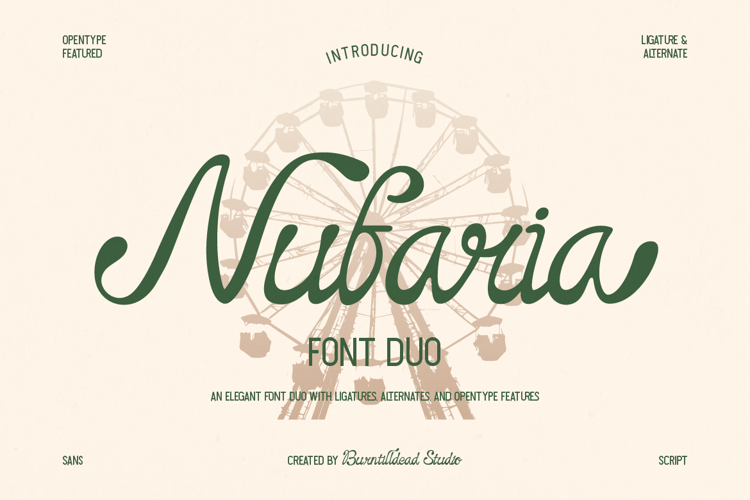
Nufaria Font
Nufaria is a retro inspired font duo with elegant script & clean sans—perfect for logos, packaging, invitations, and vintage style branding.